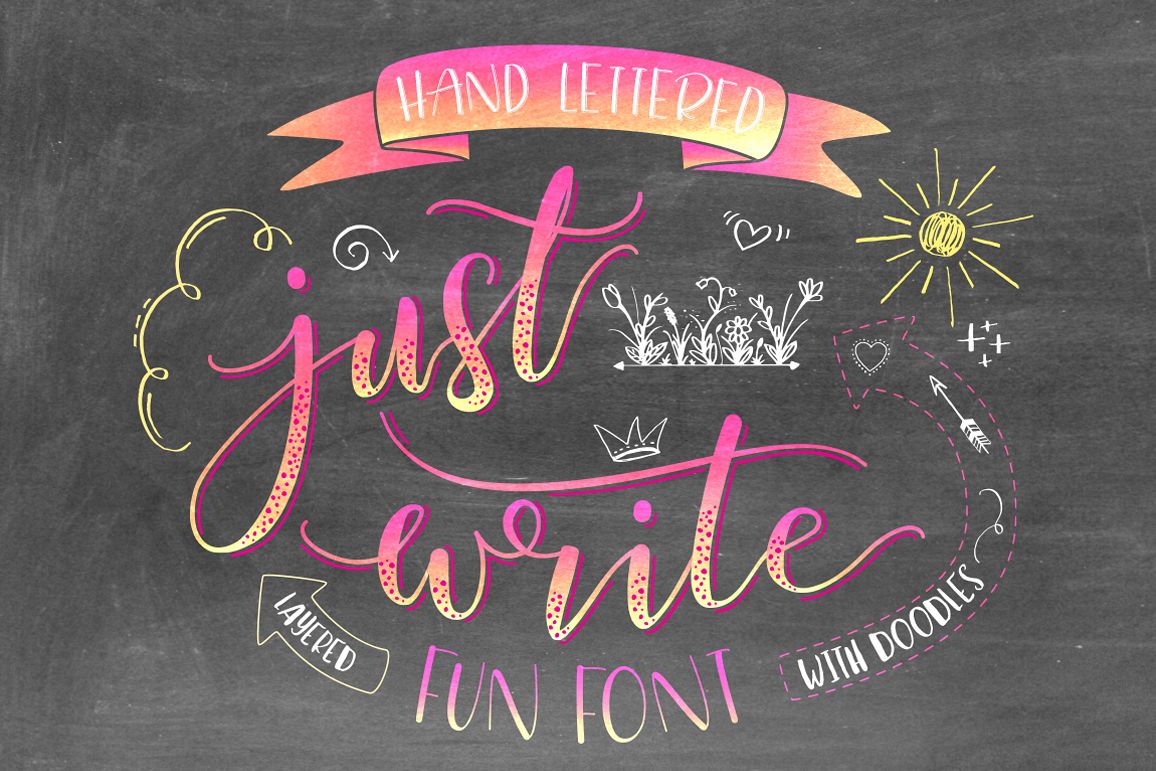
Just Write layered font
You can really make your designs POP with this hand lettered layered font!
Here's a lovely script font which includes ligatures and alternates AND some FREE doodles! YEY!
1.) Just Write Solid is just like any other normal font and can be used without using any of the other 2 if you wish.
2.) Just Write Shadow is added to your text to bring it to life by adding movement and emotion to your words.
3.) Just Write Dots on top of Solid and Shadow really finishes it off!
This little bundle of fonts is perfect for a hand lettered feel to your projects. The caps work perfectly on their own and are great for complimenting all lowercase lettering too! The dots give off a real feel of celebration and with the free doodles you've got everything you need to make some great designs!